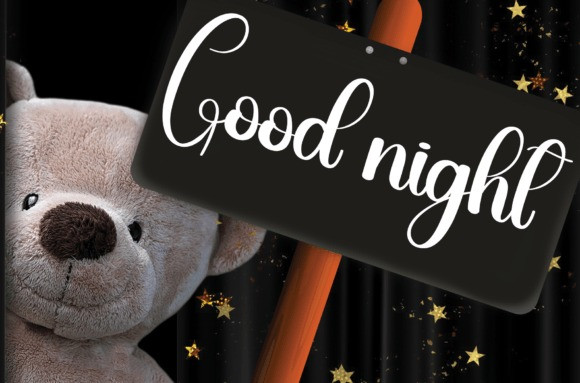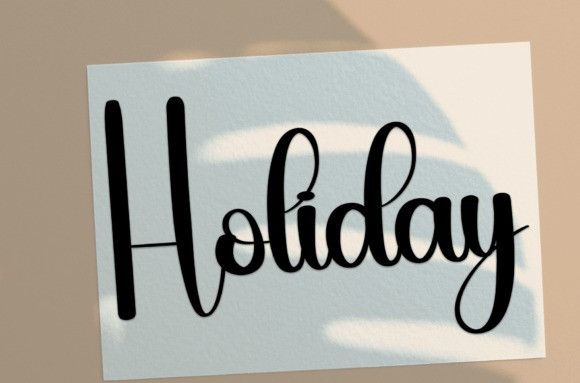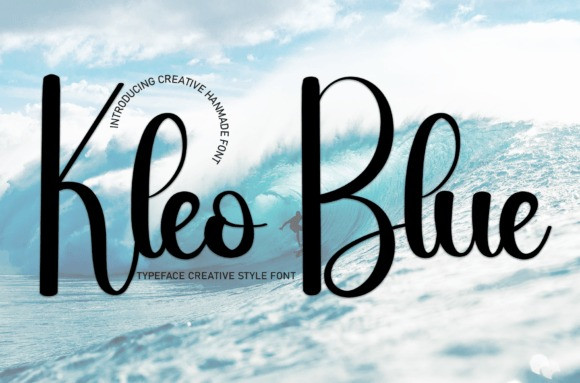
Kleo Blue Font
Kleo Blue Font is a sweet and friendly handwritten font. Creative and cute, this font is ideal for writing wedding invitations, cards, or any other design that might need a fun touch!